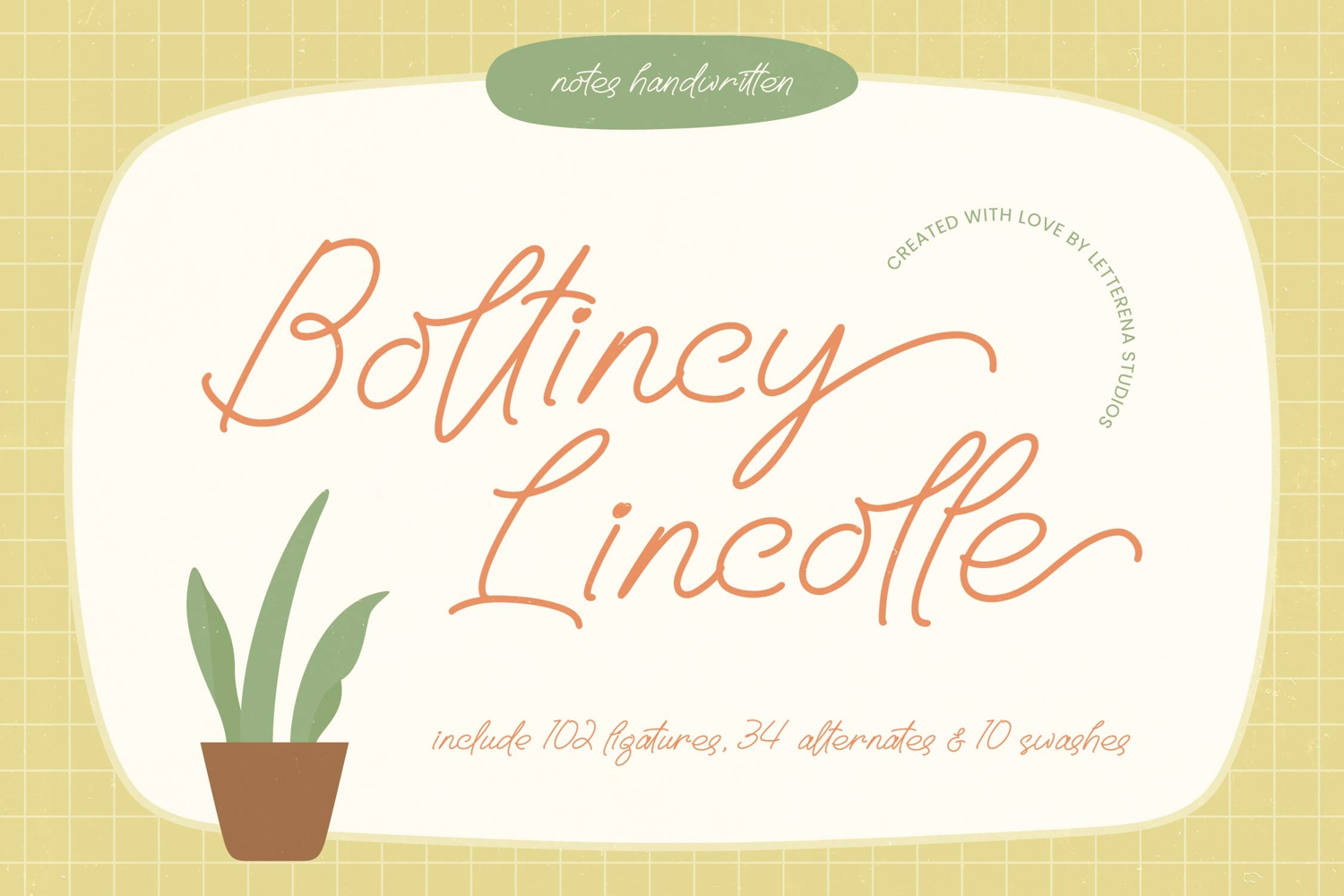
Boltincy Lincolle - Notes Handwritten
Boltincy Lincolle
Boltincy Lincolle Italic
Boltincy Lincolle - Notes Handwritten , from Stylishtype , Suitable for any projects such as: logos, branding projects, homeware designs, product packaging, mugs, quotes, posters, shopping bags, t-shirts, book covers, name card, invitation cards, greeting cards, label, photography, watermark, special events, and all your other luxury and beautiful projects that need a Luxury Script taste